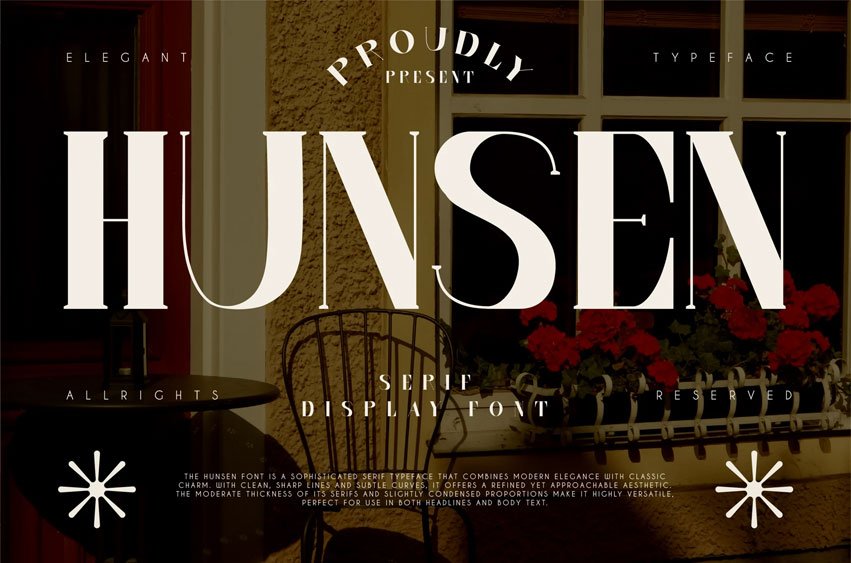
Hunsen Font is a sophisticated serif typeface that combines modern elegance with classic charm. With clean, sharp lines and subtle curves, it offers a refined yet approachable aesthetic.
The moderate thickness of its serifs and slightly condensed proportions make it highly versatile, perfect for use in both headlines and body text.